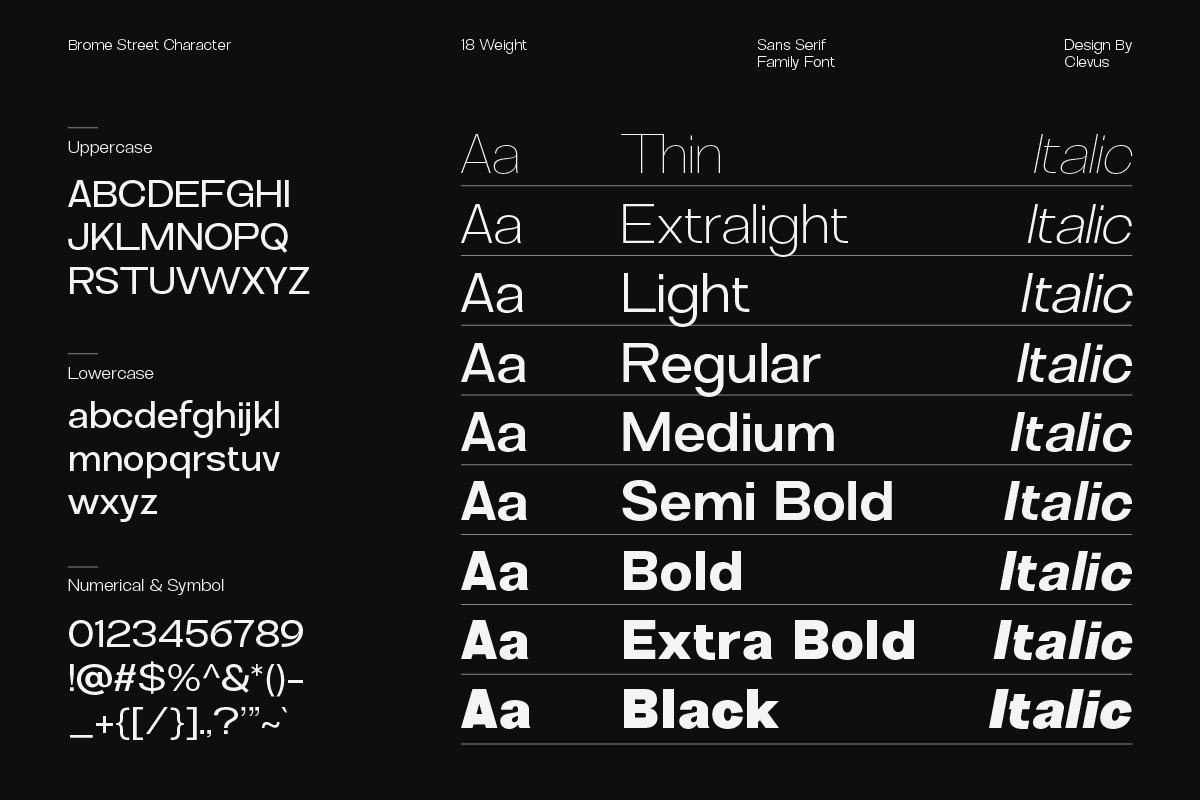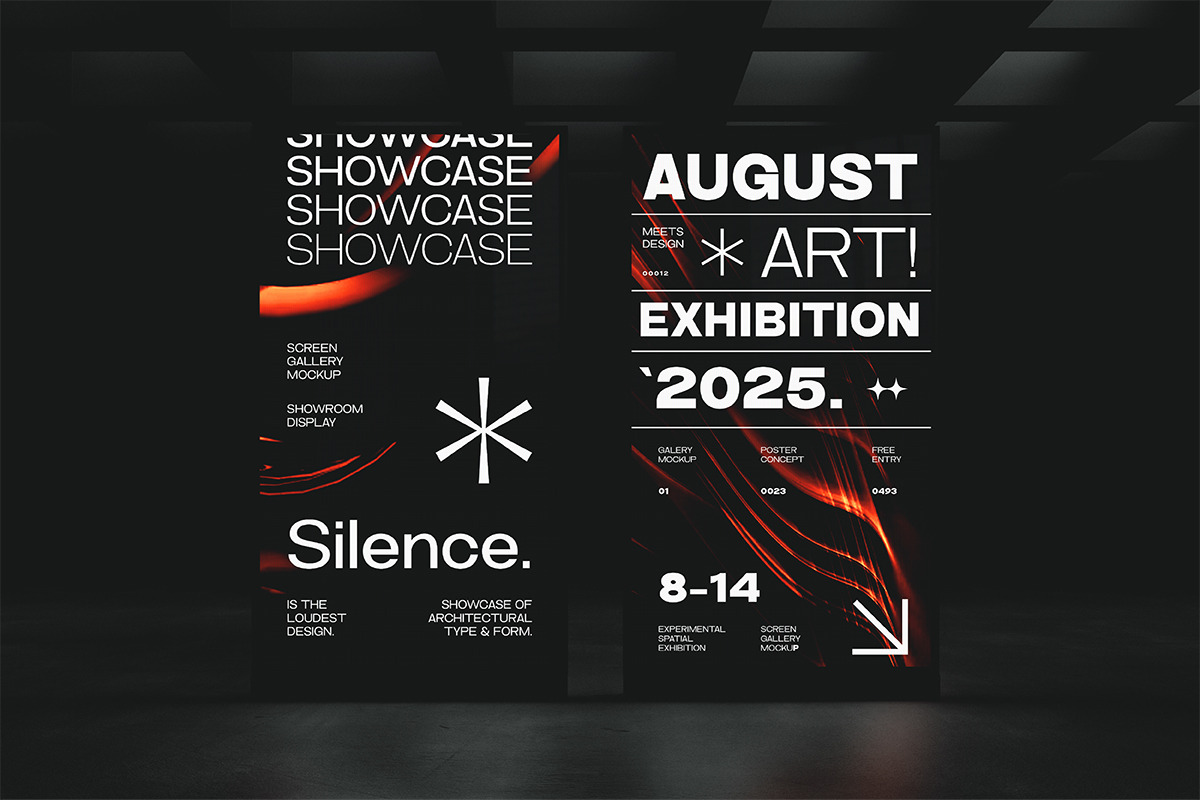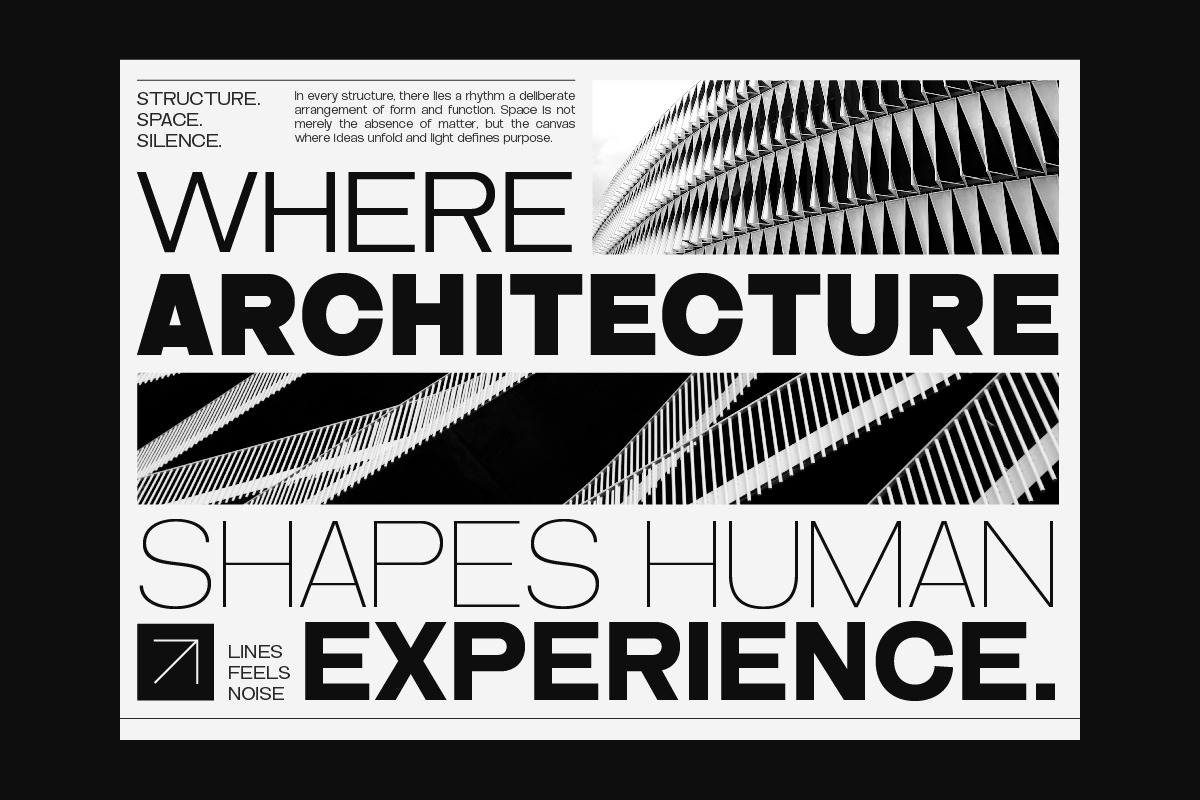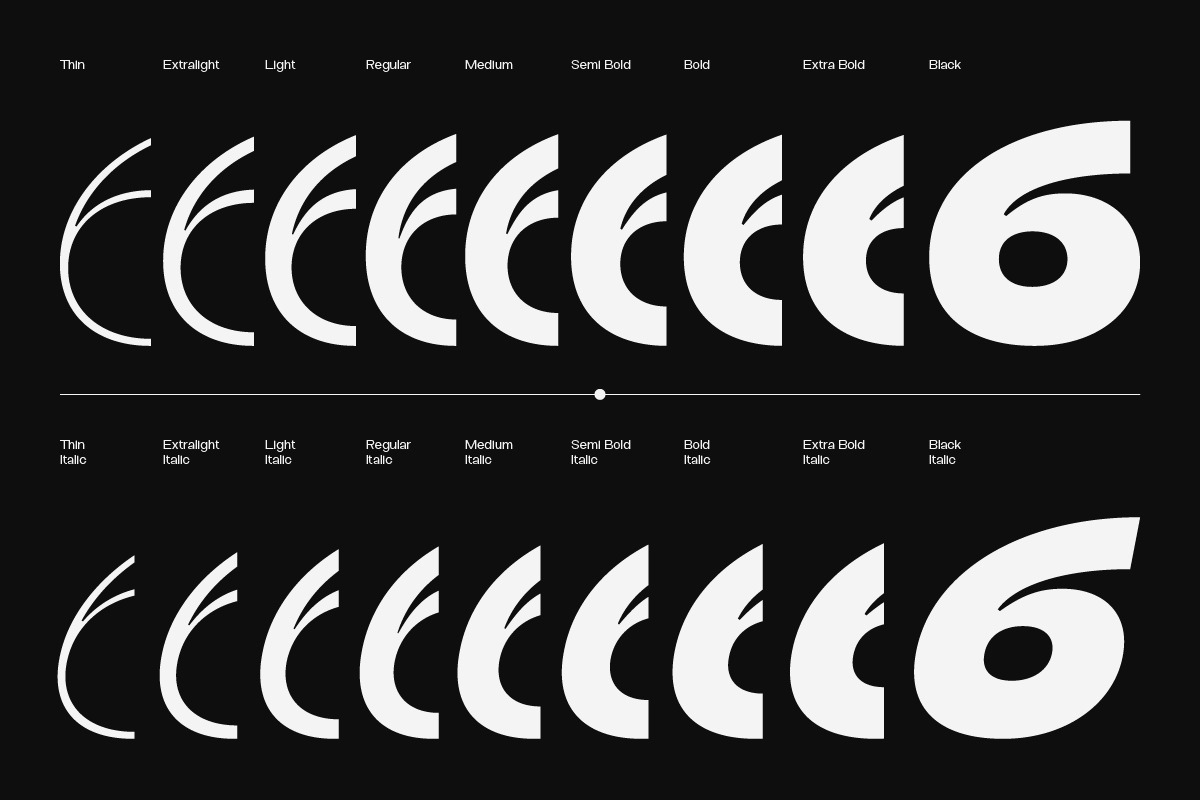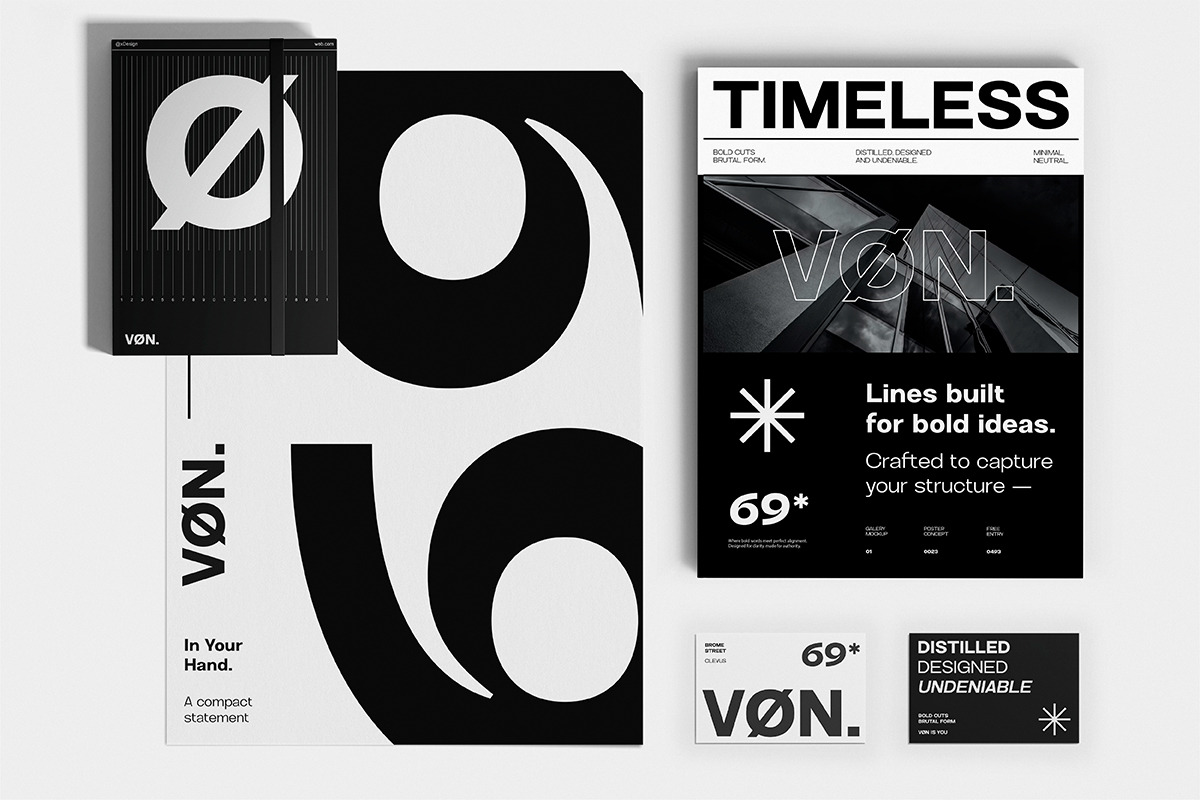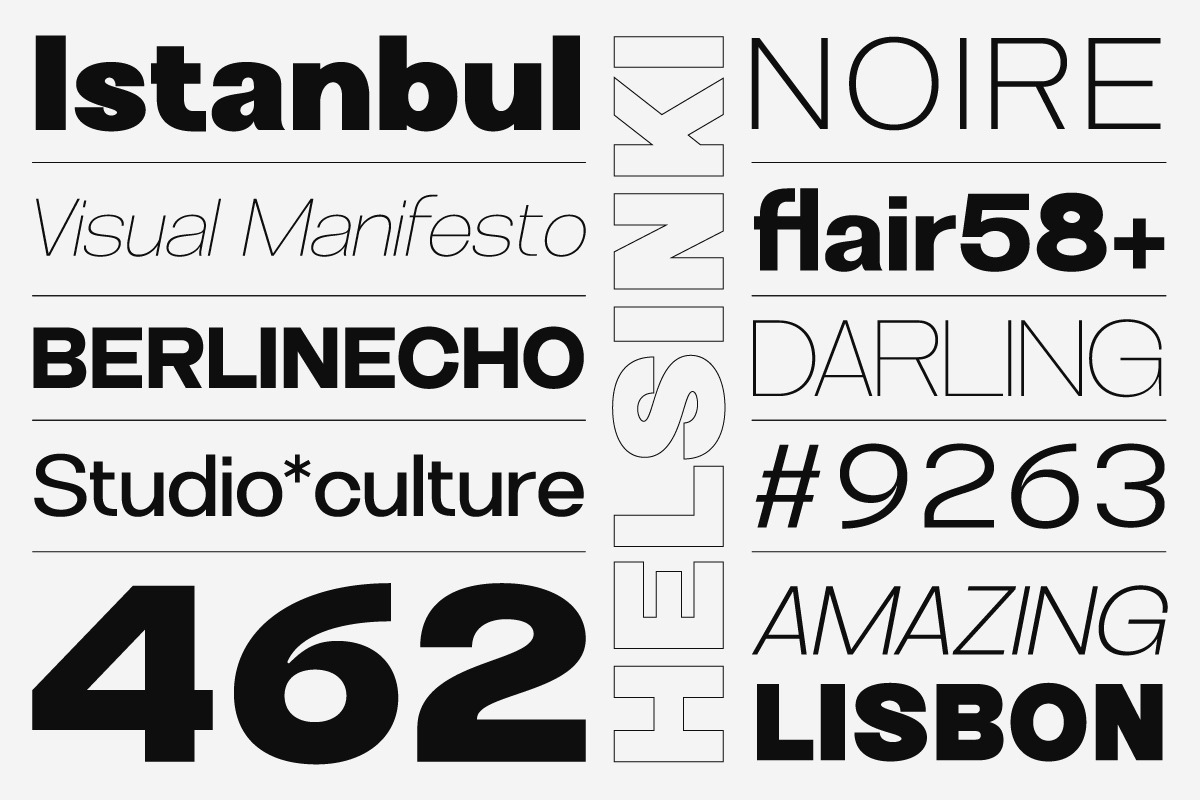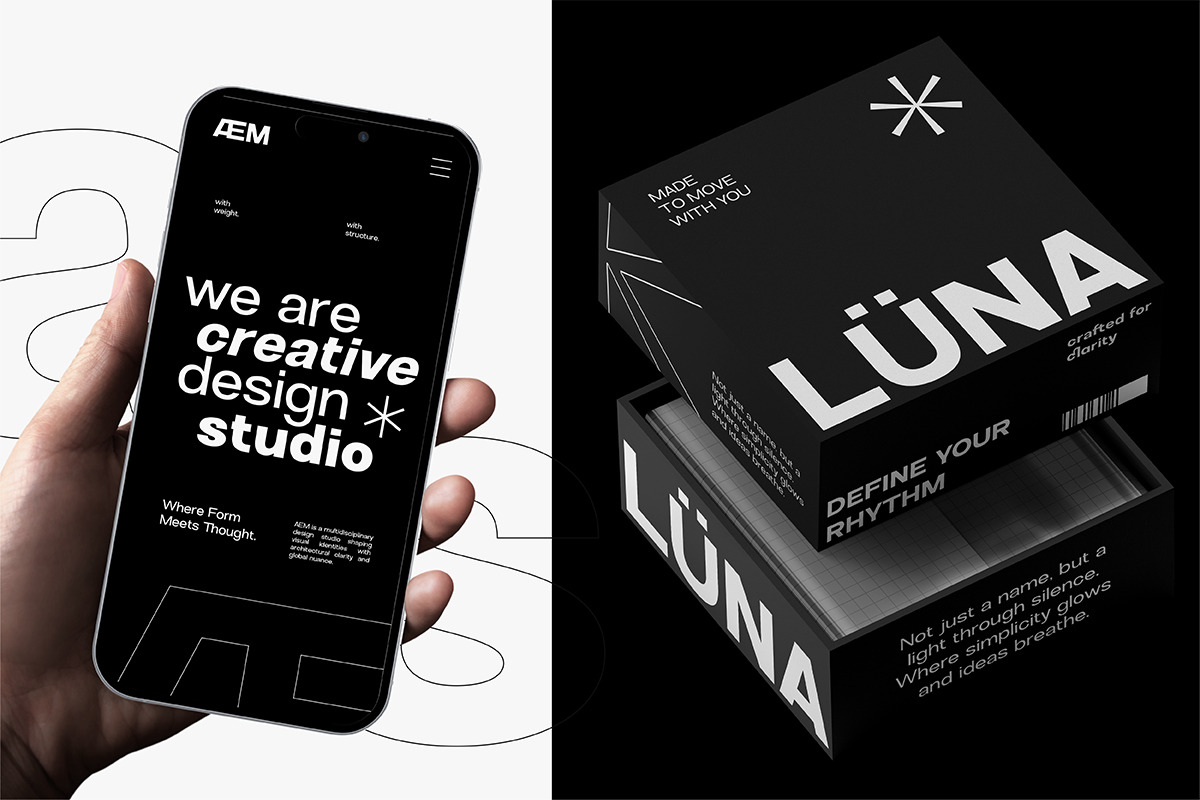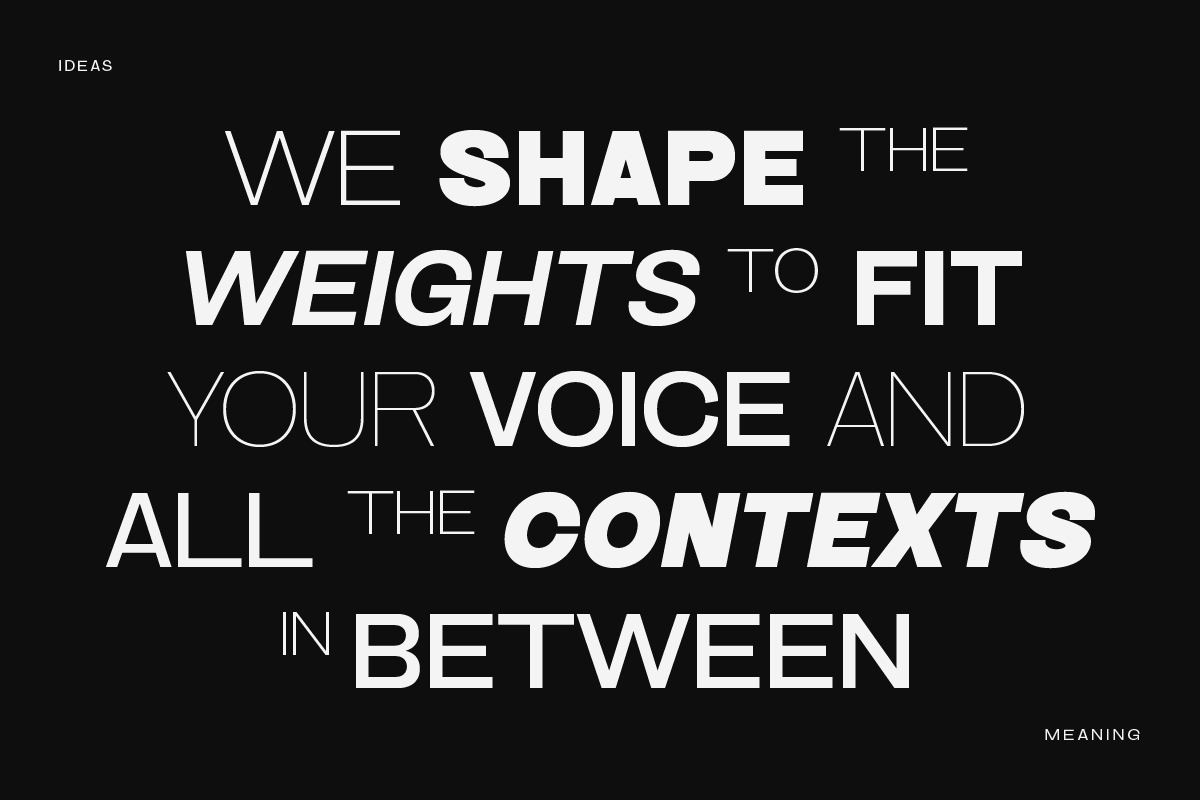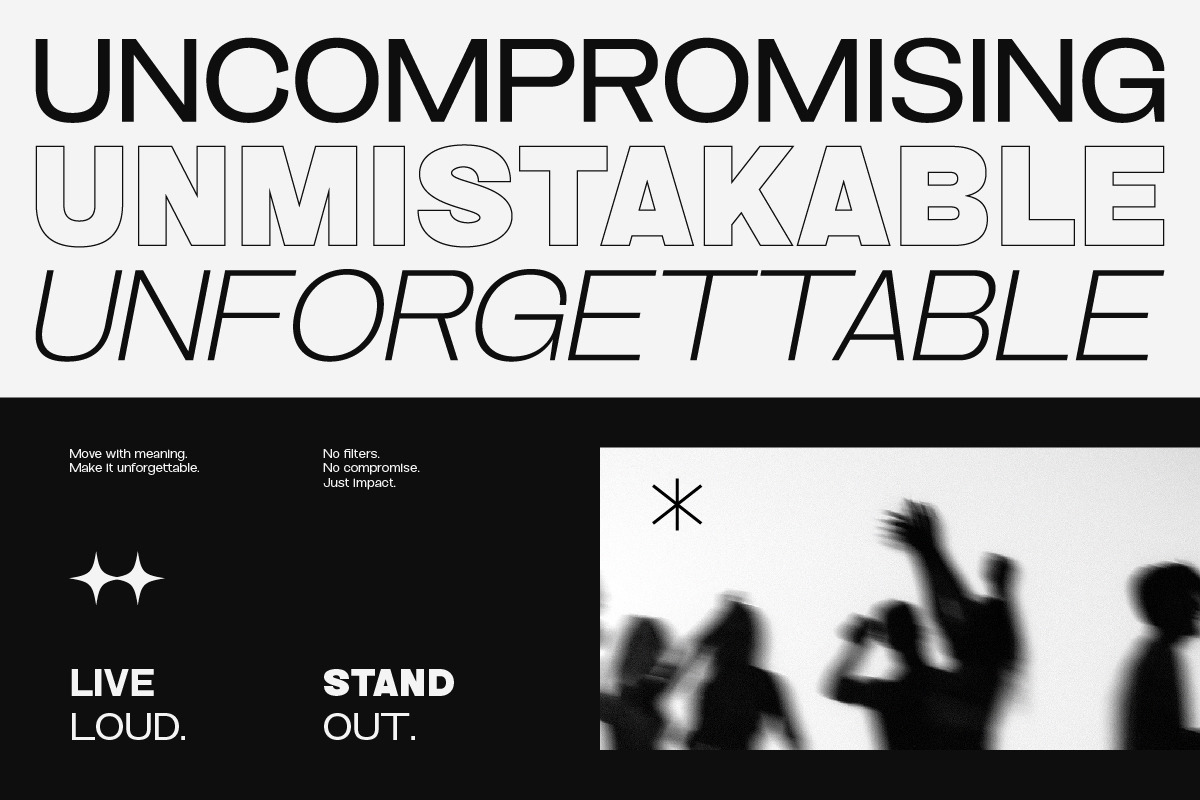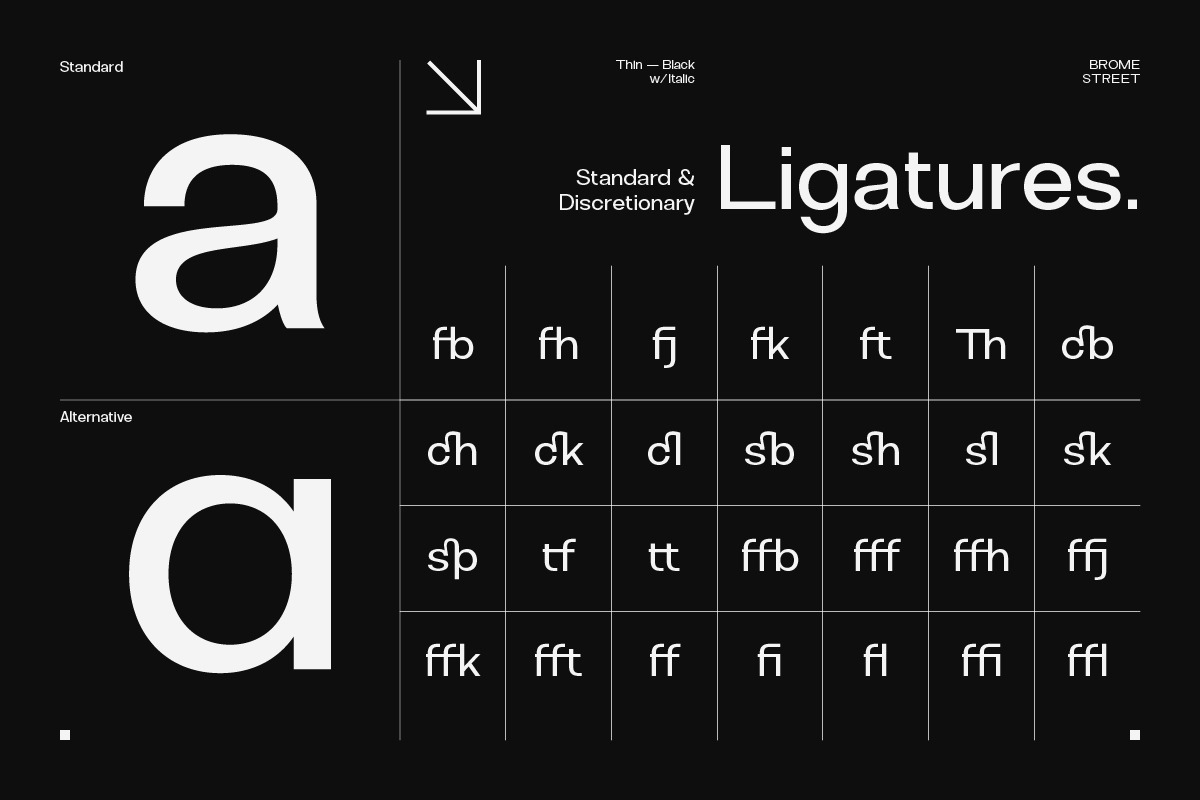
Brome Street | Family Condensed Font
Proudly present Brome Street Family Condensed Font, is a modern and bold condensed font inspired by classic grotesque typefaces with 18 weights.
Brome Street equipped with several OpenType. Have 18 weight and 20 unique alternates ligatures. Comes with alternatives and ligatures, and helps to create stunning logos, quotes, posts, blog posts, branding projects, magazine imagery, wedding invitations, poster and much more.
- 18 Weights
- Letters, numbers, symbols, and punctuation
- 20 alternates and ligatures